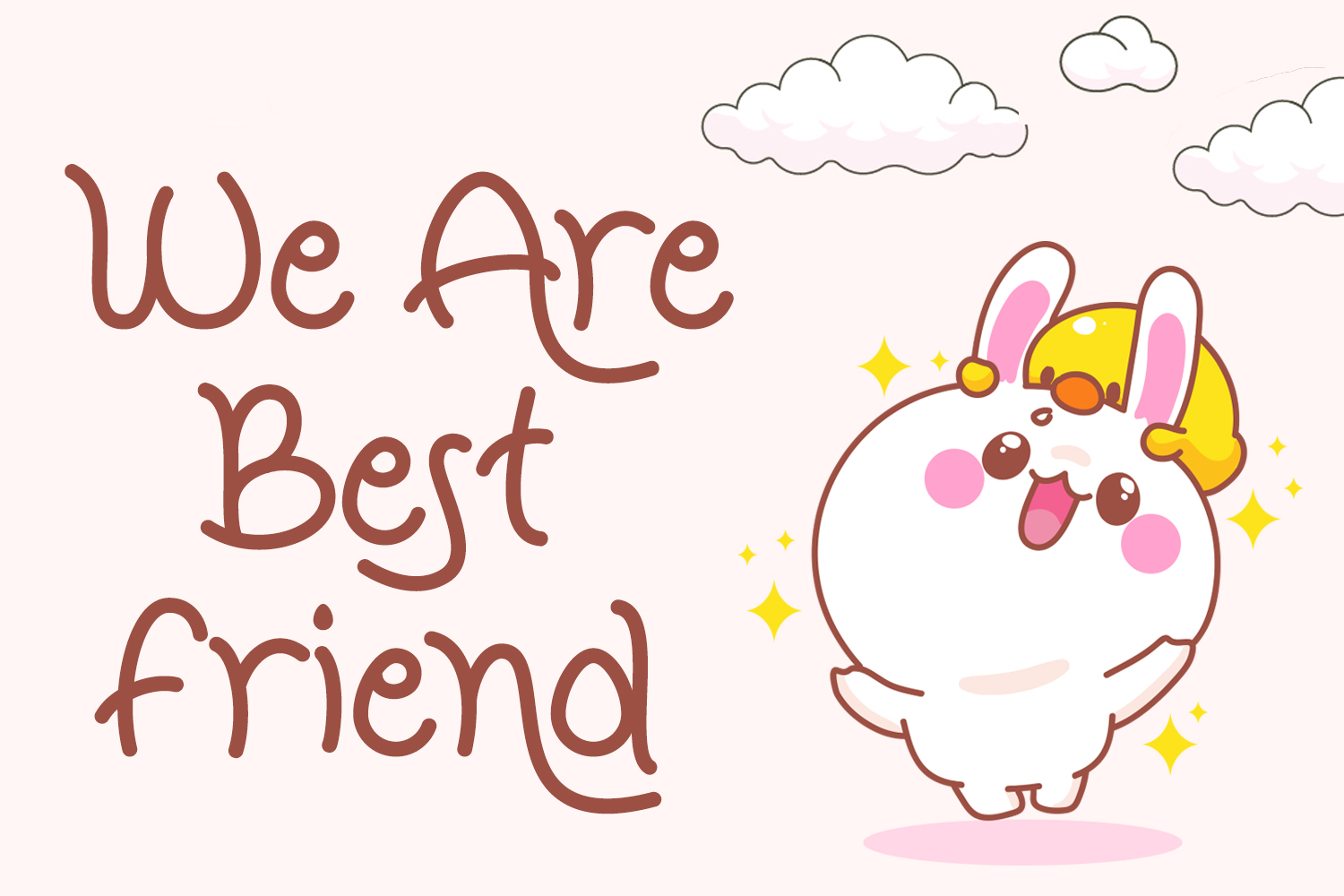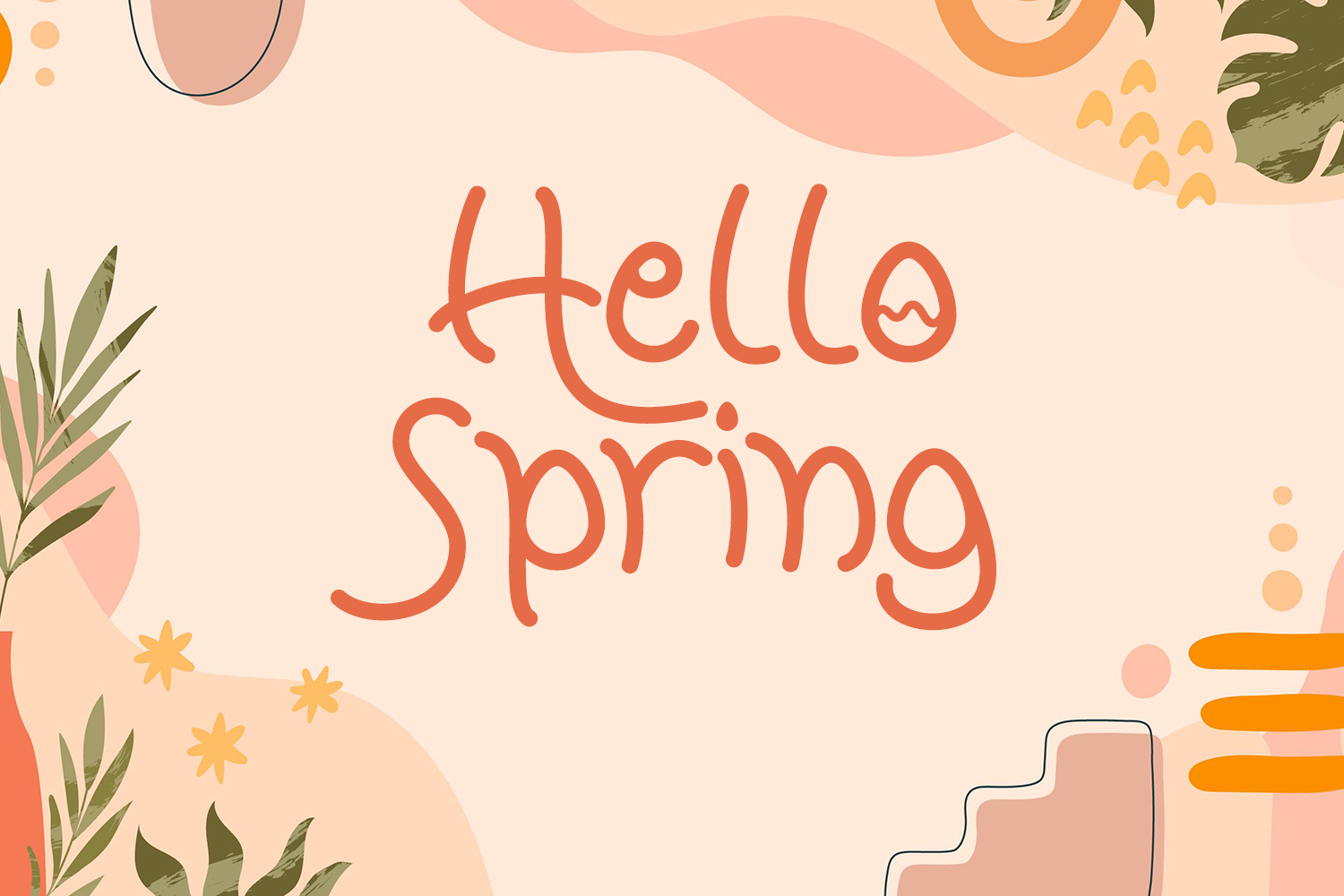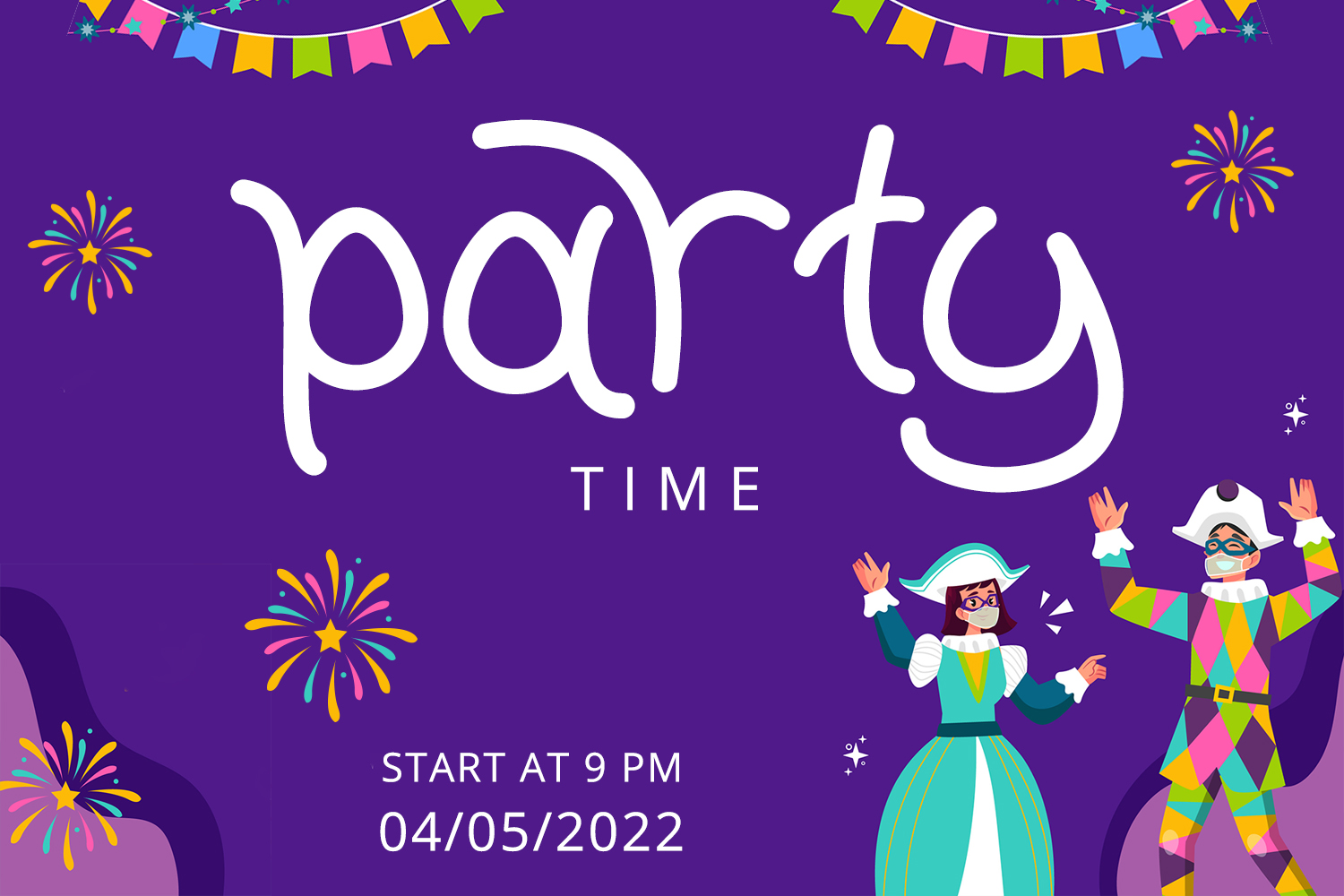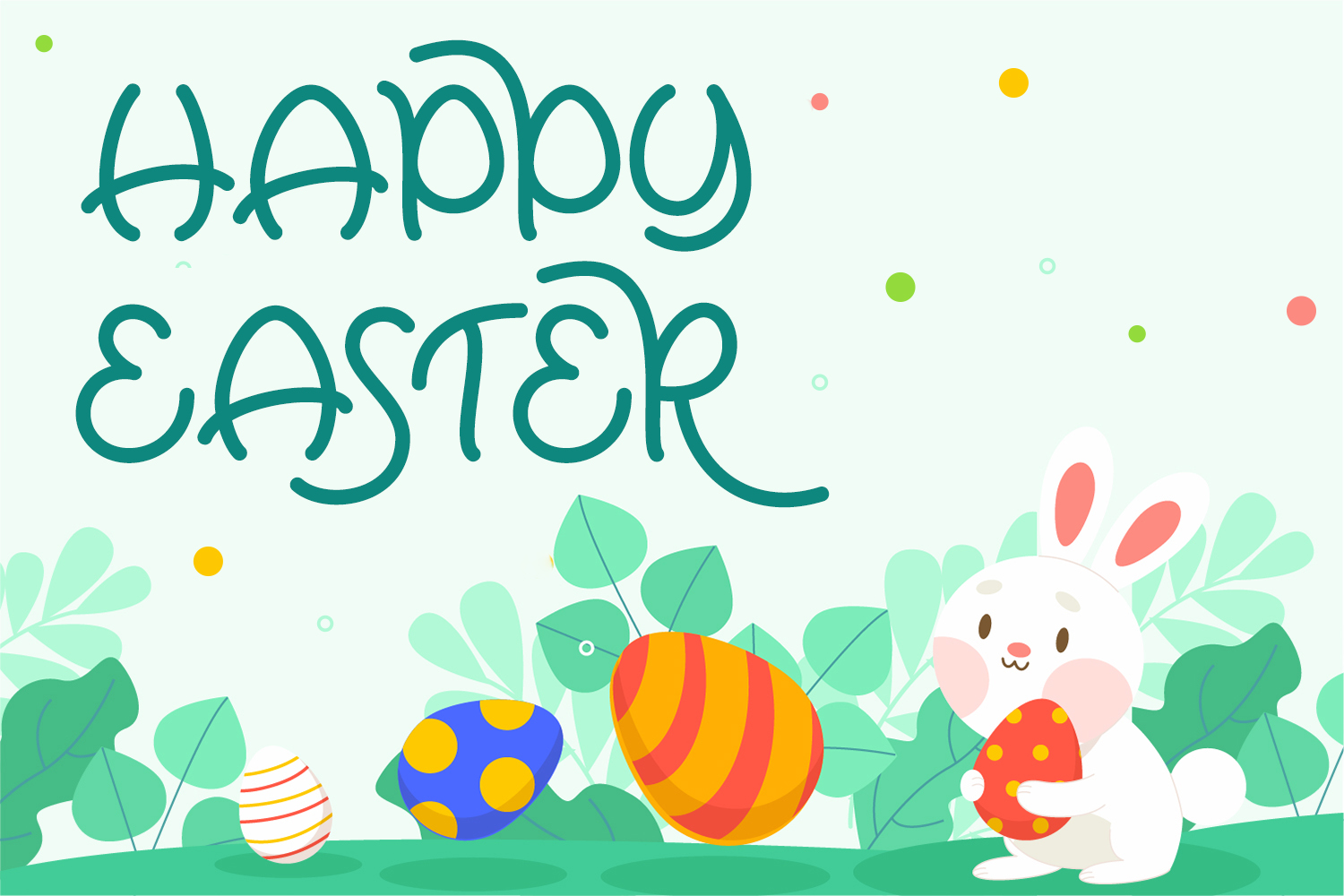
Easter Memory Handwritten Font
This is a cute handwritten font with fun and playful feels. It will be perfectly used for Branding, Logo Design, Lettering, Logotype, Clothing, Poster, magazine, packaging, posters, shopping bags, t-shirts, book covers, photography, special events and other design project.
– Uppercase & Lowercase
– Numerals
– Punctuations (OpenType Standard)
– Accents (Multilingual Characters)
– Ligatures and Alternative Style Stylistic Set